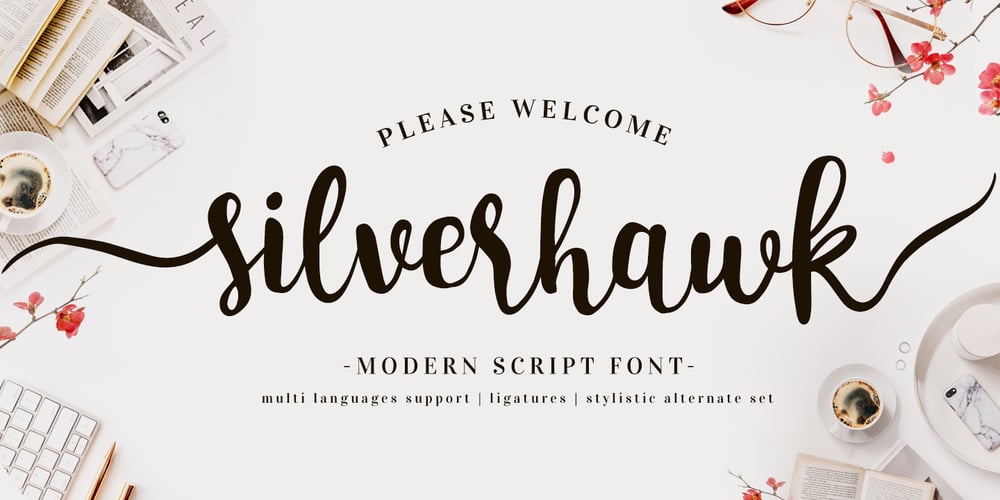
Silverhawk Font Family was designed by Gitayogi Irhandi and published by Scratch Design. Silverhawk contains 1 styles and family package options. Please welcome the Silverhawk script font! An elegant and modern script font with authentic brushed shape, this script font is allowing you to create beautiful hand-made typography. With natural curves & loops, this font is guaranteed to make your text more stand out! This font is perfect for logos, printed quotes, invitations, cards, product packaging, headers, titles, quote, and anything in your imagination.This Silverhawak script font comes with 17 ligatures which allows you to create even more beautiful custom text. Another great feature is a complete set with 2 sets of lowercase alternates which allows you to add some really unique andreal touches to your script text. So don’t be hesitate to download this font, it’s very useful in any occasion luxury designs.